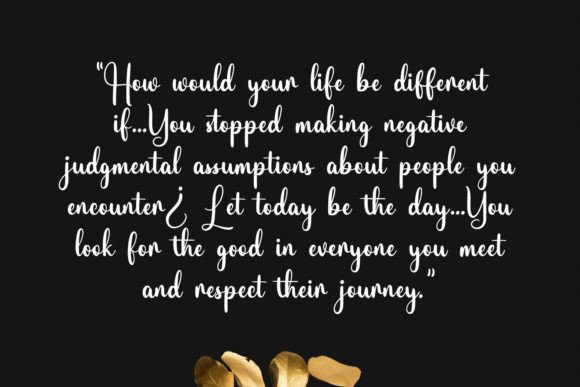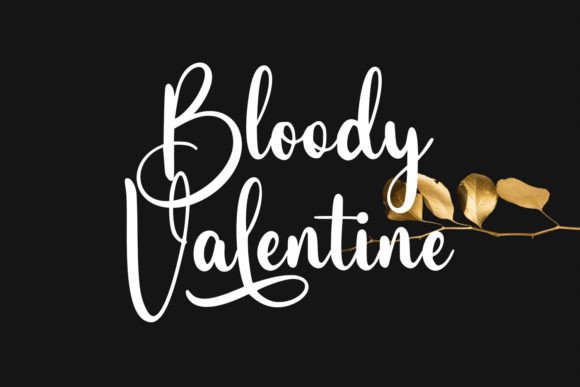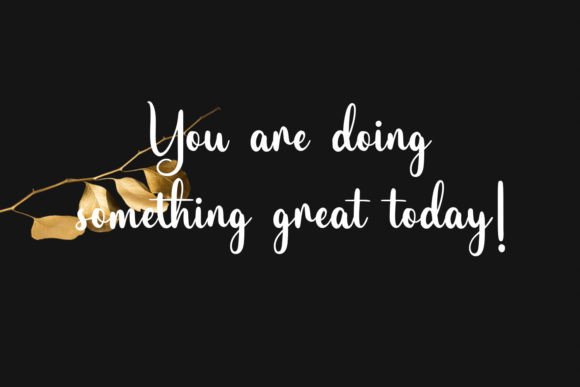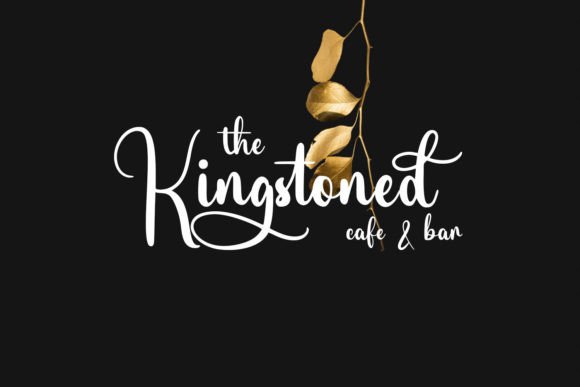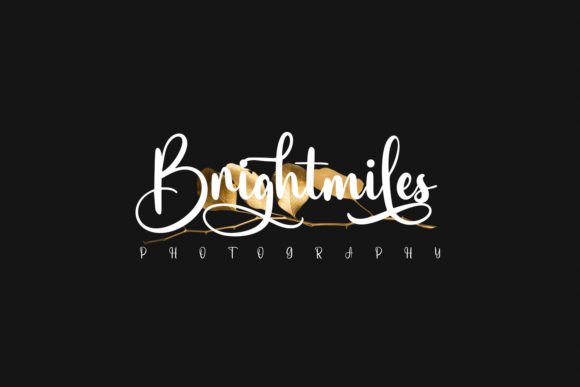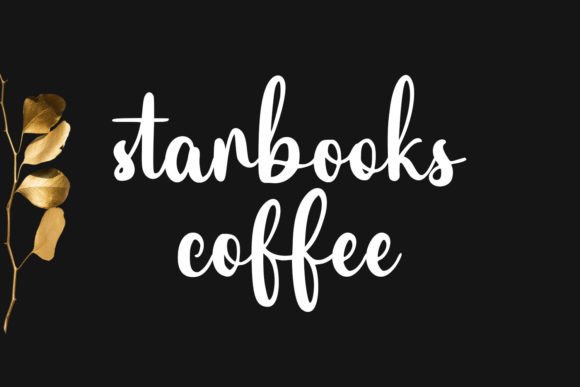
Introduction to Laffisya Font
As a designer, have you ever found yourself stuck in a creative rut, searching for the perfect font to bring your vision to life? You’re browsing through design resources, scrolling through endless options, when suddenly, you stumble upon a font that makes your heart skip a beat. That’s exactly what happened when we discovered the enchanting Laffisya Font.
This beautiful, flowing handwritten font boasts an elegant touch that’s sure to elevate any design project. With its incredibly distinct and timeless style, it’s no wonder why Laffisya Font has become a go-to choice for designers looking to add a touch of sophistication to their work. Whether you’re working on a high-quality design project or simply need a free download to spice up your creative endeavors, Laffisya Font is the perfect addition to your design arsenal.
Key Features of Laffisya Font
- High-quality font with a unique, modern design that can be a valuable resource for creative projects.
- Features a clean and minimalist design, ideal for use in logos, branding, and other visual identity projects.
- Perfect for designers and artists working on creative projects, from digital art to print materials.
Honest Review: Laffisya Font
I recently stumbled upon the Laffisya Font, and I must say, it’s been a game-changer for my creative projects. As a designer, I’m always on the lookout for high-quality design resources that can elevate my work.
- ✨ The font’s unique and modern design aesthetic makes it perfect for modern branding and digital projects.
- ⚠️ The font family is relatively small, with only a few styles to choose from.
Overall, I’m thoroughly impressed with the Laffisya Font. It’s a fantastic addition to any designer’s toolkit, and I highly recommend it for any creative project. Whether you’re working on a branding project or a digital campaign, this font is sure to deliver high-quality results.
Laffisya Font is ideal for use in creative projects such as logos, posters, and infographics.
It is also suitable for use in digital design, such as websites and social media graphics.